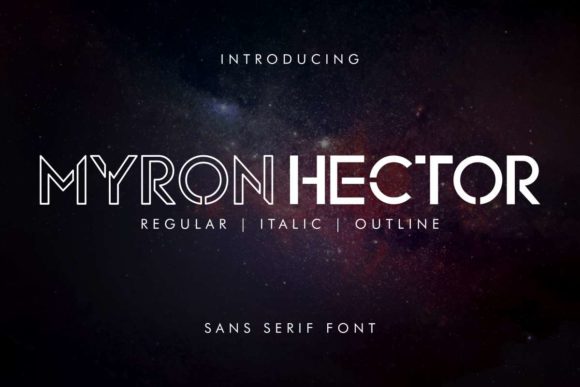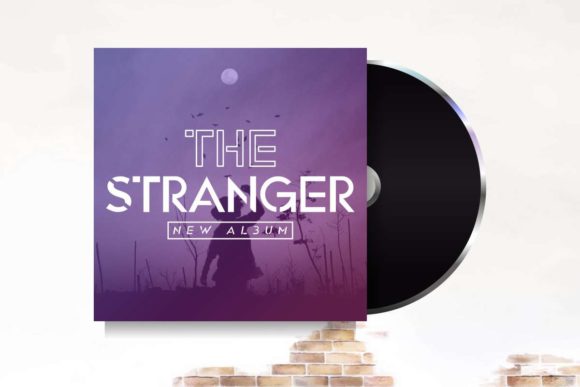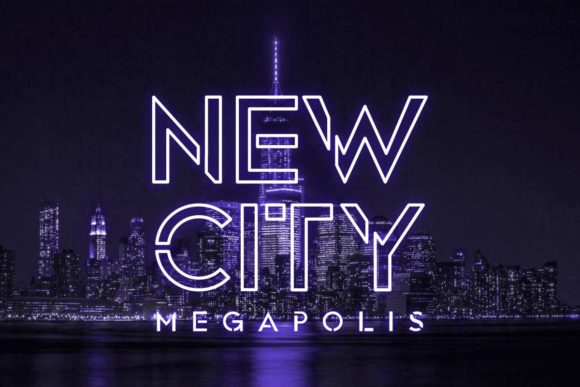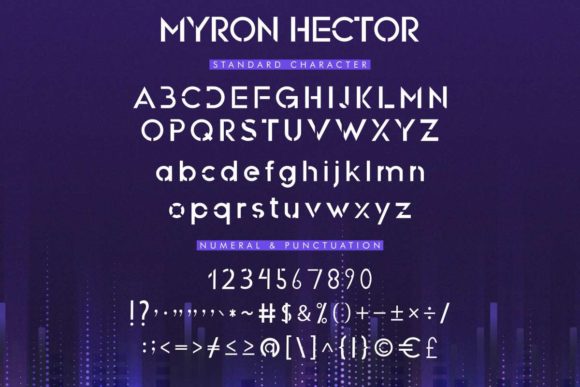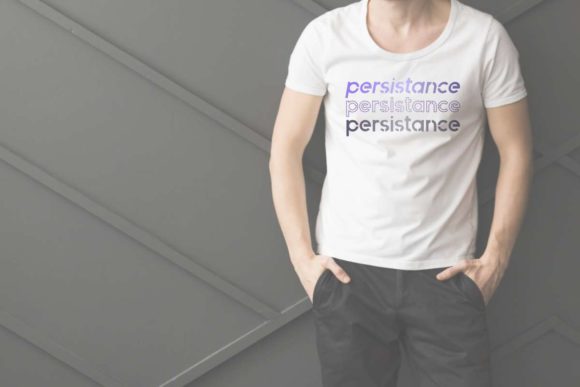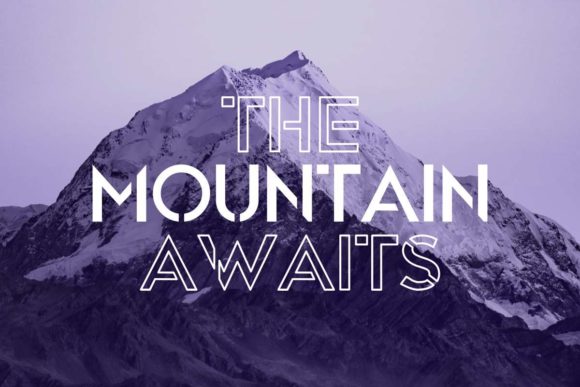
Introduction to Myron Hector Font
Myron Hector is a bold and modern sans serif font.
It will look particularly adept when used in logos, branding, packaging design, and much more This masterfully designed font is a true must-have.
Key Features of Myron Hector Font
Why Choose Myron Hector Font?
Myron Hector Font offers exceptional quality and versatility, making it a valuable addition to your design toolkit. Whether you’re creating for personal projects or commercial use, Myron Hector Font delivers professional results.